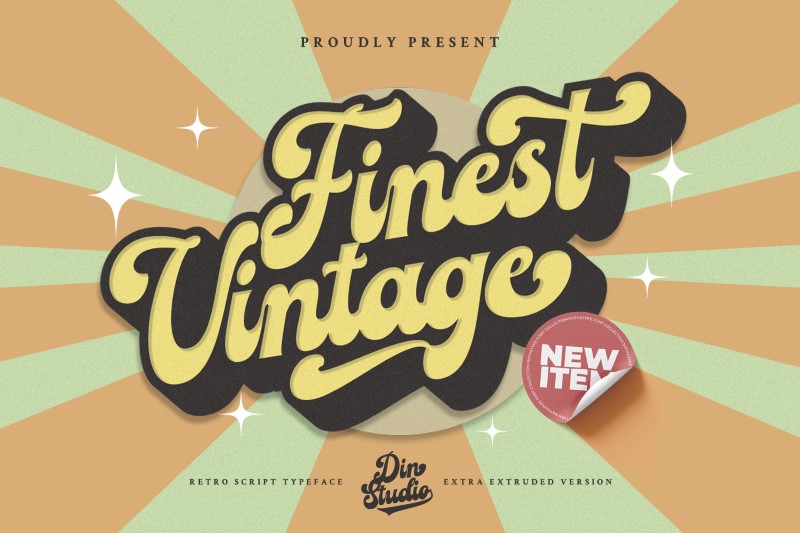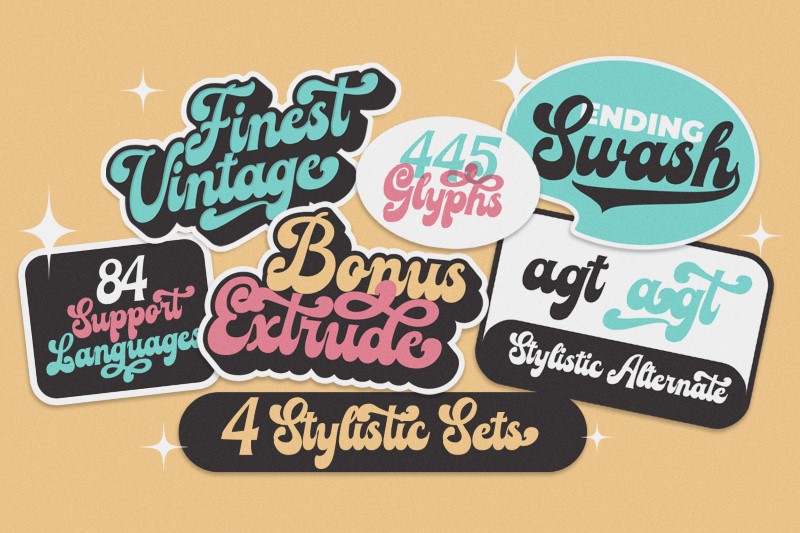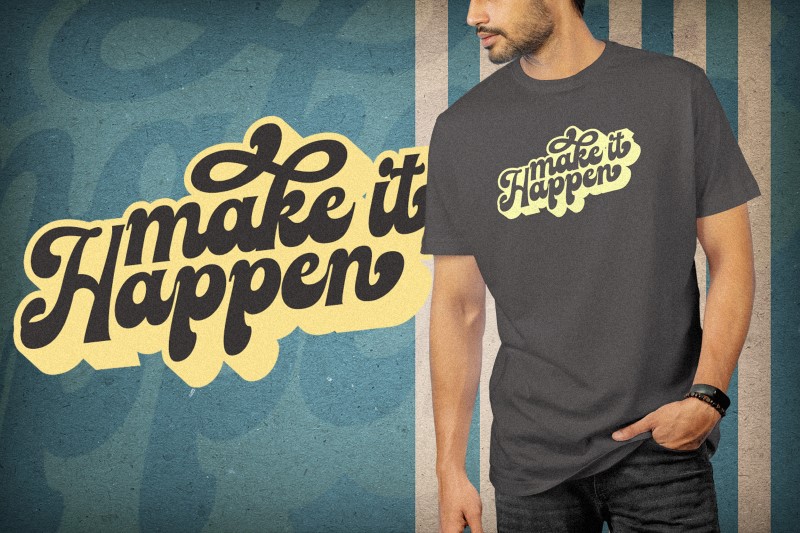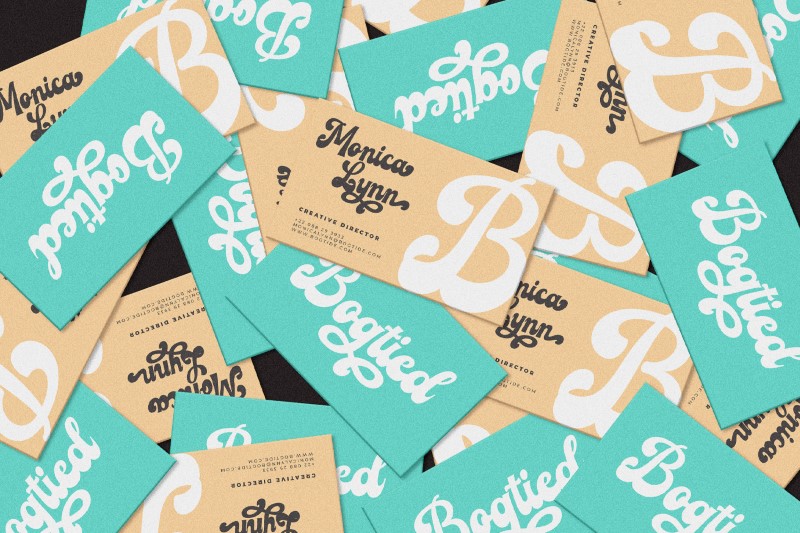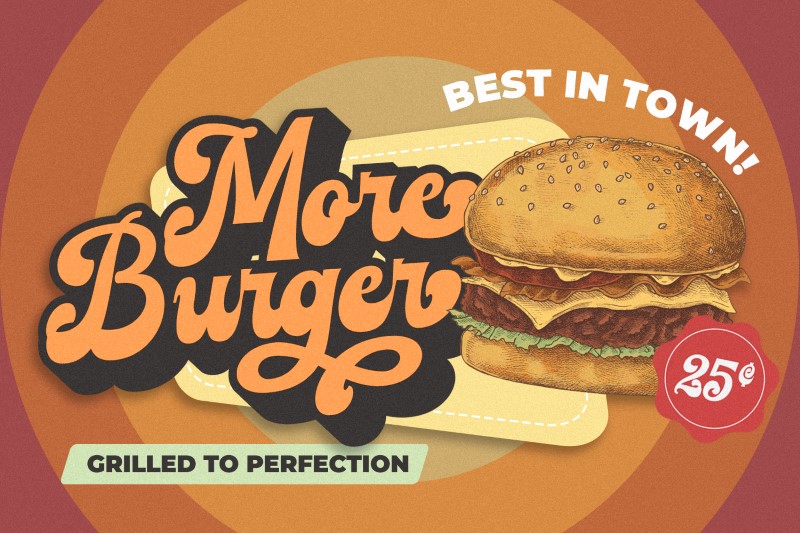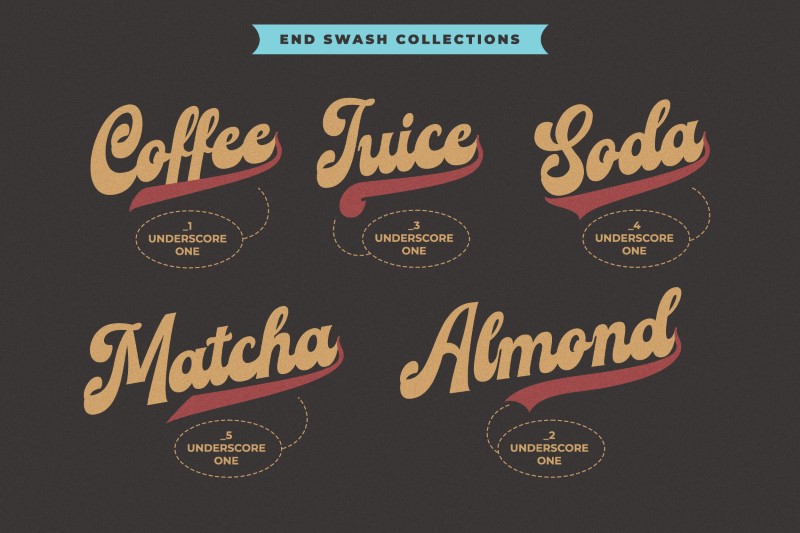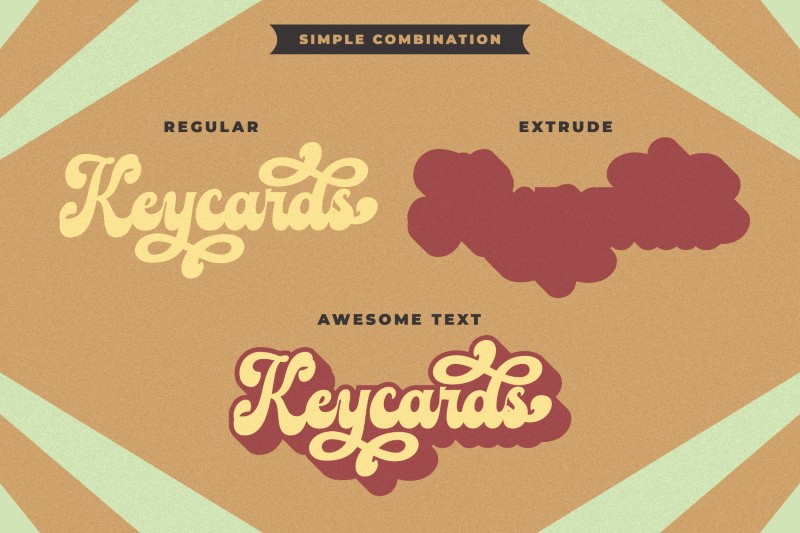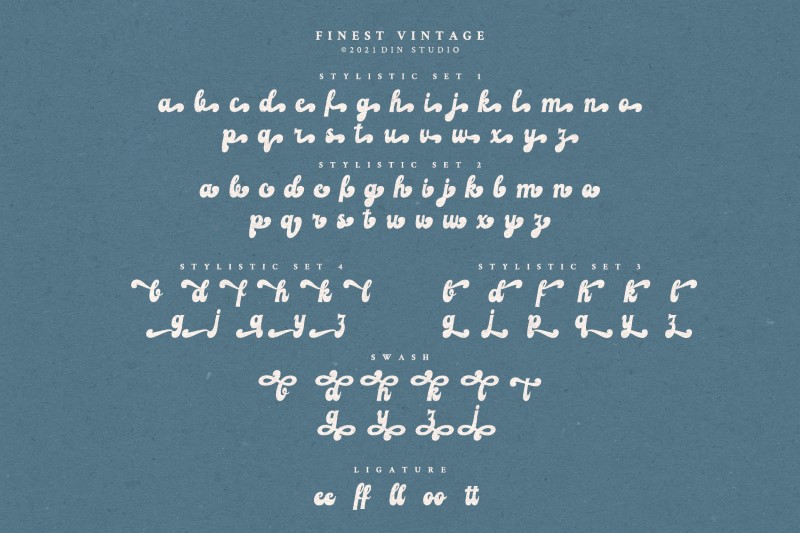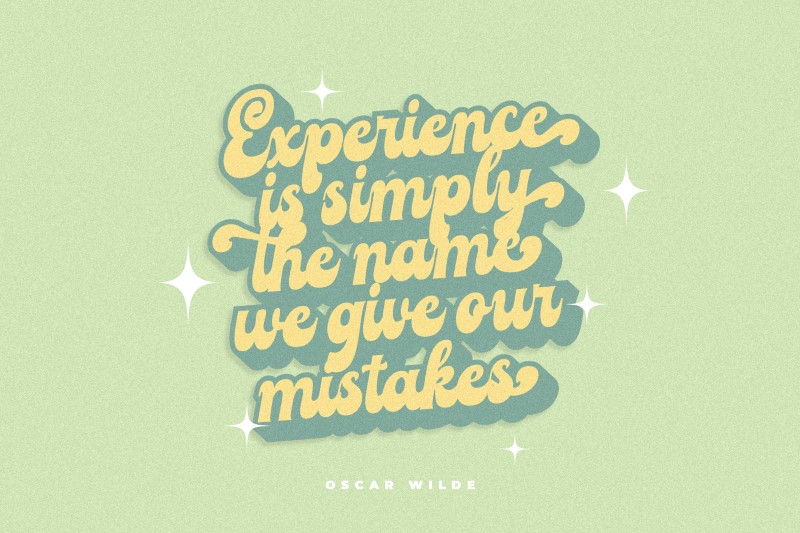
Choosing fonts for design projects can be a daunting task because there’s thousands of fonts out there all over the web that you could use. Here it is. A font that can add touch of magic whether you’re looking to create a big, bold logo for your business, work on a poster for an event, or whatever your project may be. Finest Vintage – A Retro Script Font.
Finest Vintage is a beautiful font, employing the iconic bubble style with strong outlines and fat strokes. This font made in thick and angular letters that easy on the eyes and nice to look while it’s also easy to read. It comes with a range of multilingual glyphs and is one of those bubble fonts styles that’s hard to take your eyes off. The font becomes more special with extruding version option. Perfect to create amazing headings, logos, menus, social media graphics, and many more.
- Stylistic Alternates
- Swashes
- Numerals and Punctuation